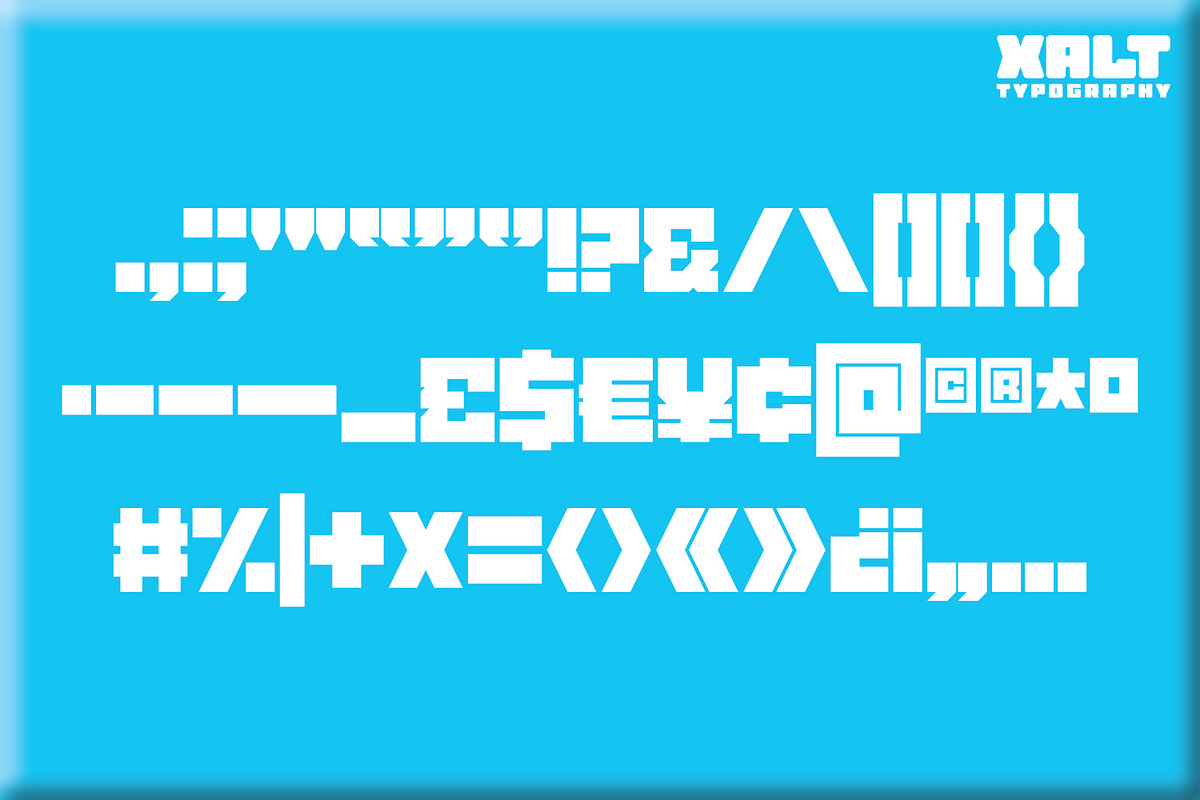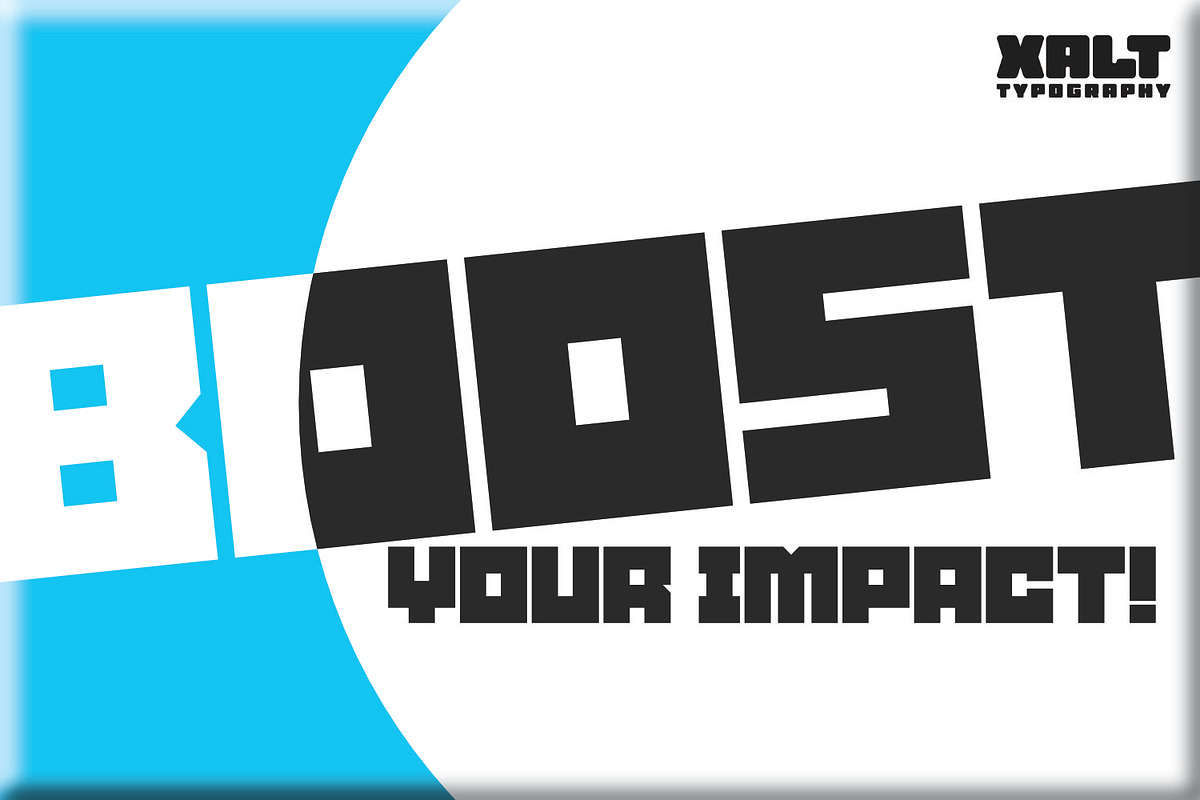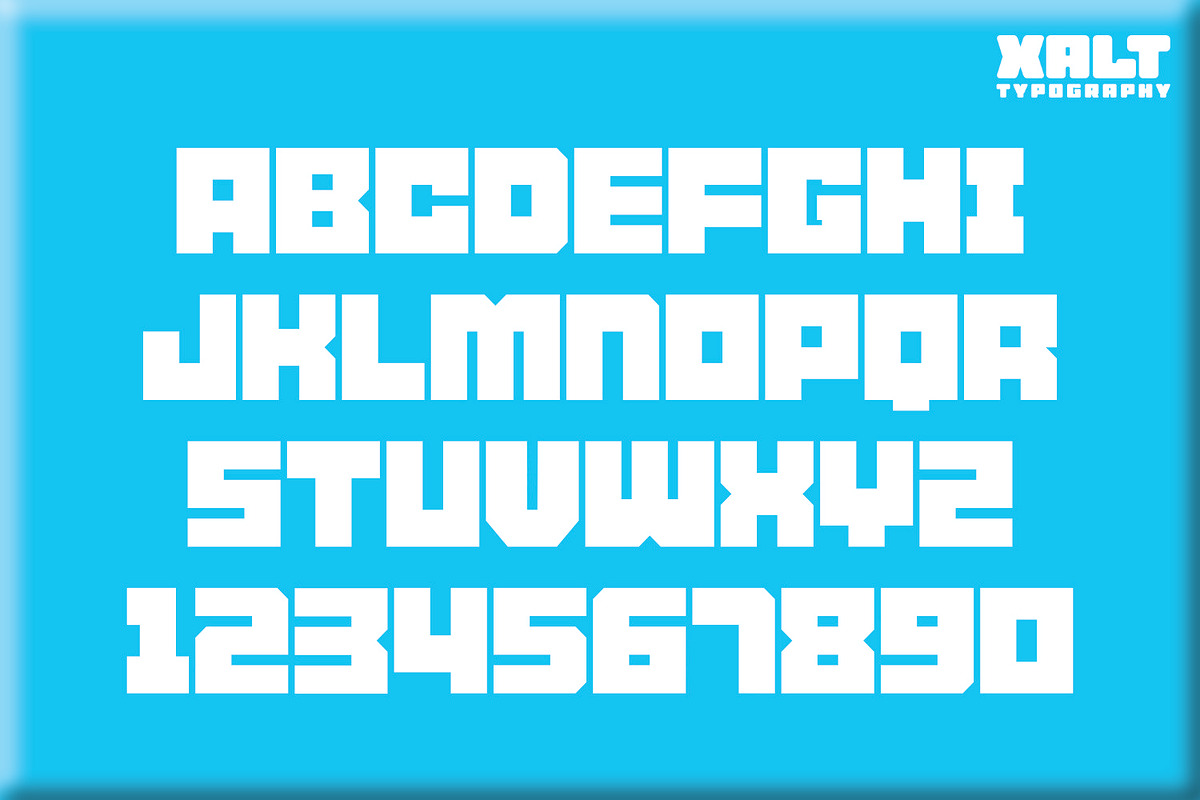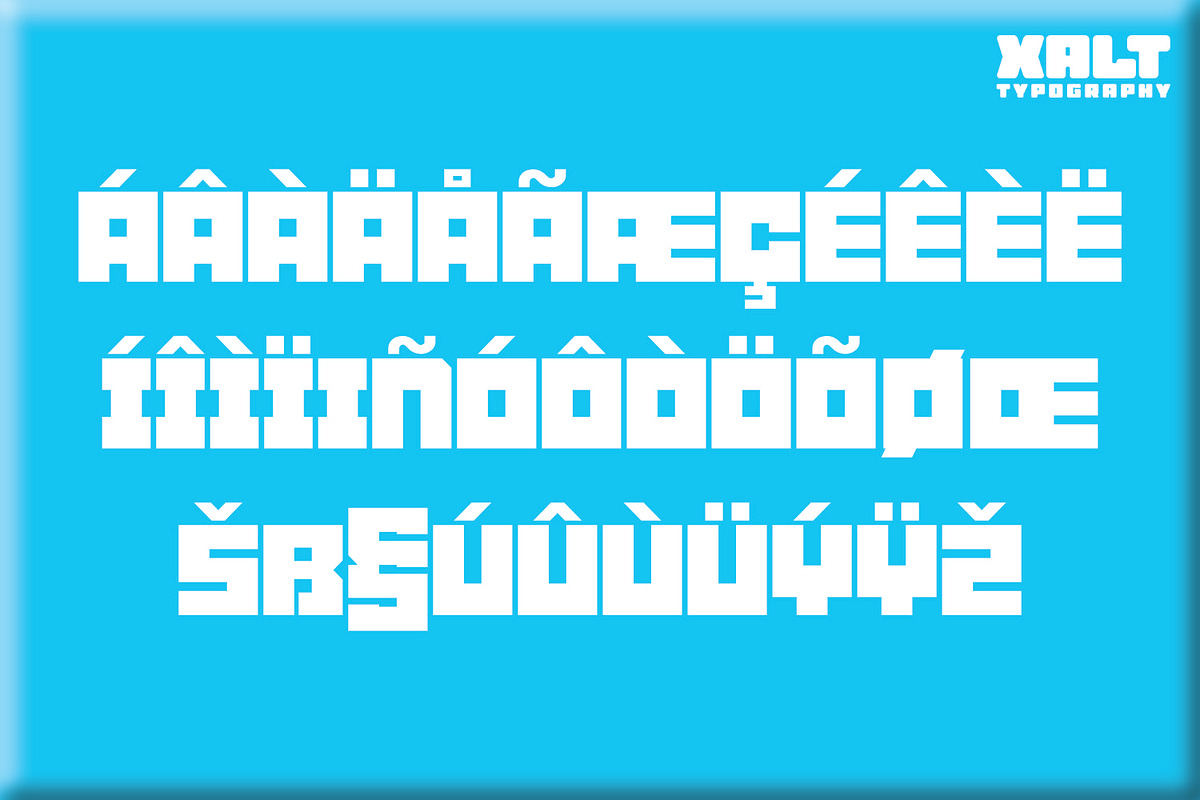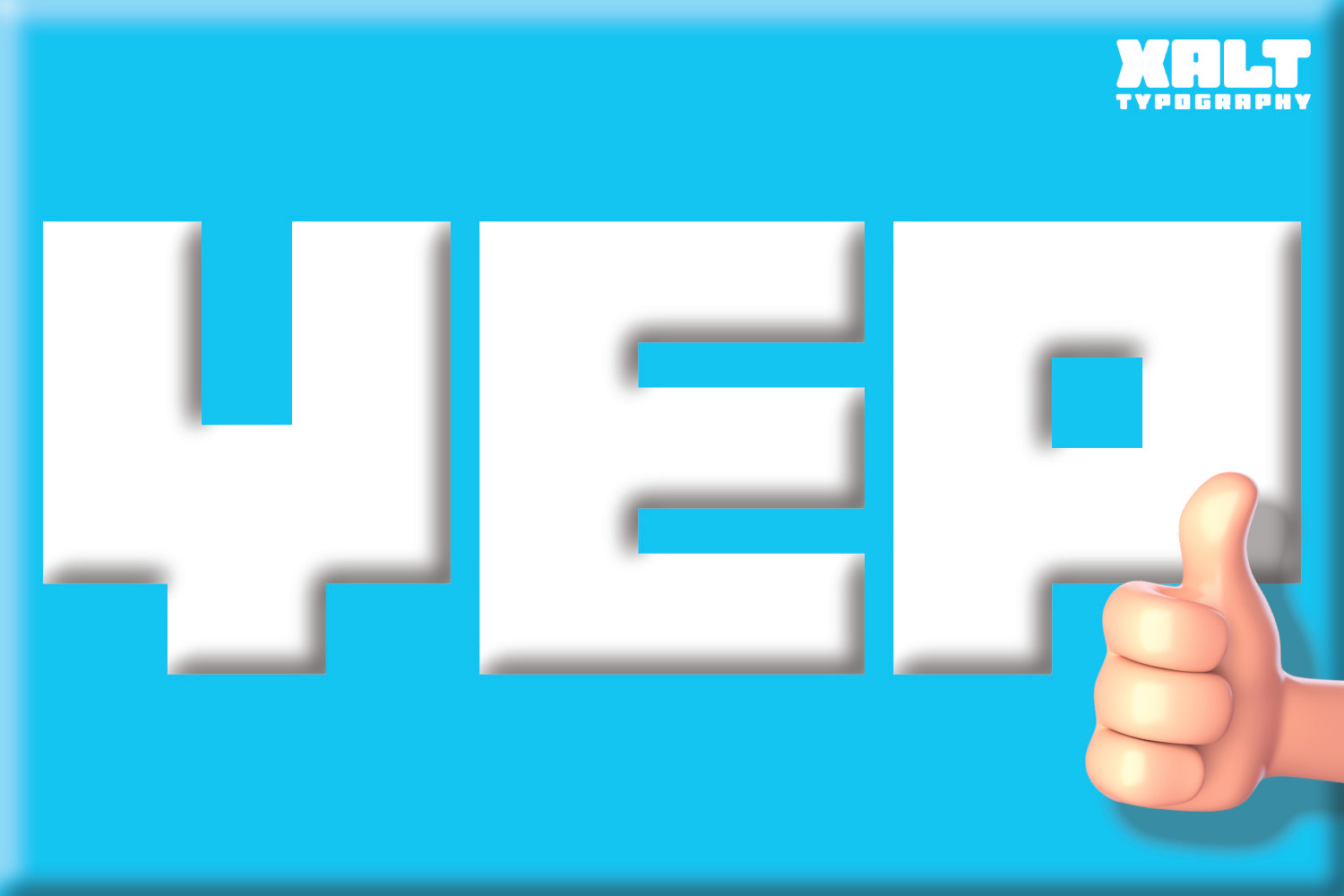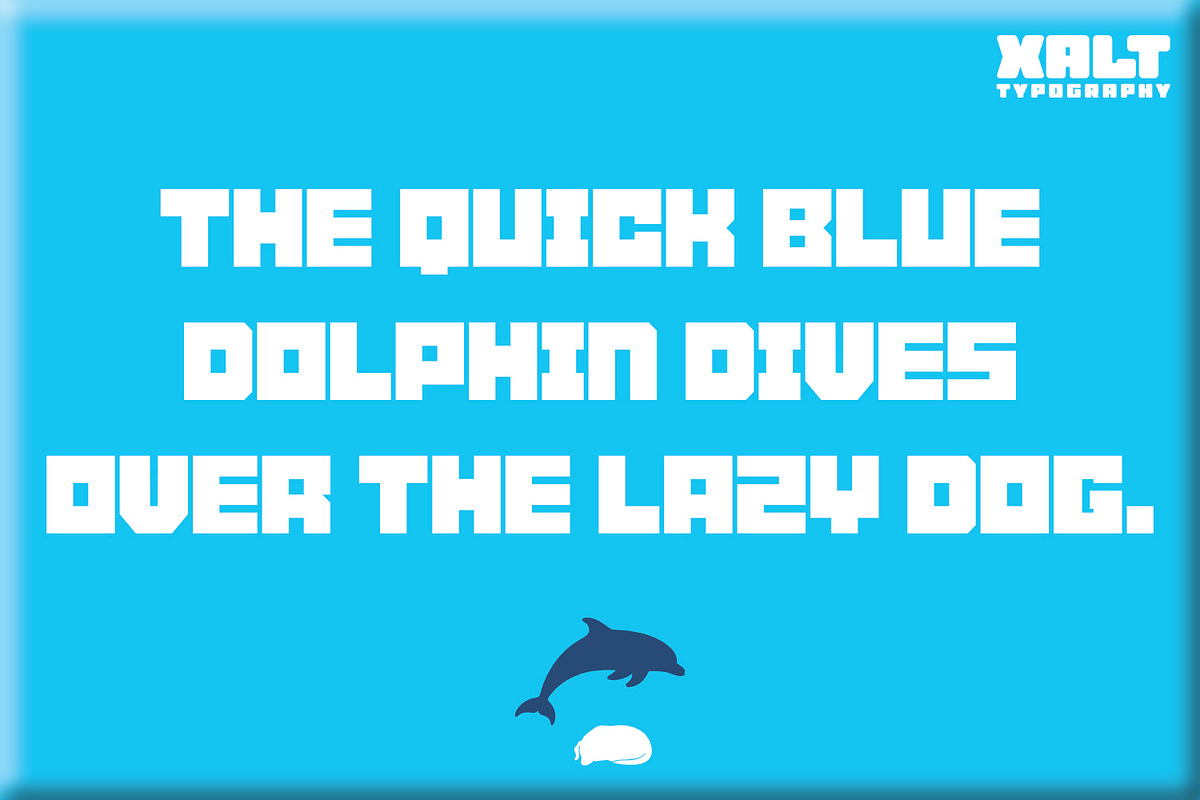
YEP – The Big, Bold Block Font
YEP is the big, bold, blocky display typeface your font collection lacks!
It's bold, solid and built to deliver your message with confidence and clarity.
Yep was designed with careful precision down to the smallest detail. Every edge has been thoughtfully measured to create a display font that is powerful and dependable for the modern designer. No matter what you type, it makes your message stand out with strength and style.
Here's why you should add YEP to your toolkit:
Super versatile: This bold block display font is perfect for a vast variety of projects, from graphic design and marketing to logos, posters and branding.
Unique characteristics: With its strong structure and clean modern style, Yep brings a fresh and original feel to your designs, giving your words a confident visual identity.
Extensive punctuation: All essential punctuation marks are included, carefully designed to match the bold Yep style.
Multi-lingual support: Extended Latin coverage for French, Spanish, Portuguese, Italian, German and more.
There's one thing left to say... YEP!